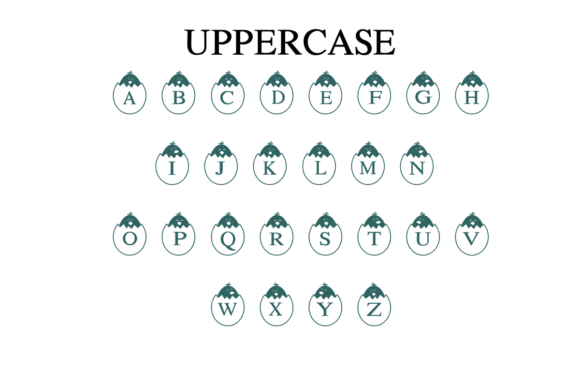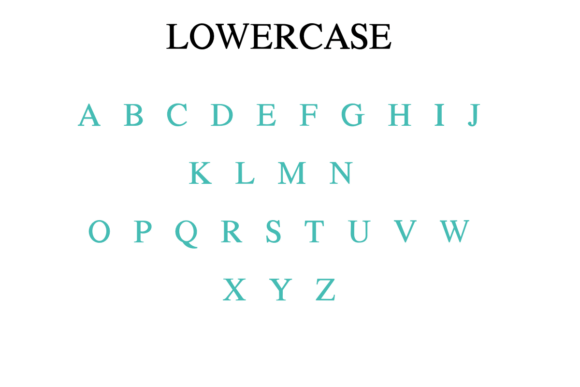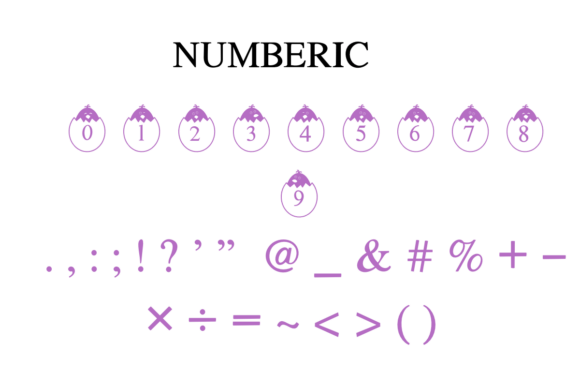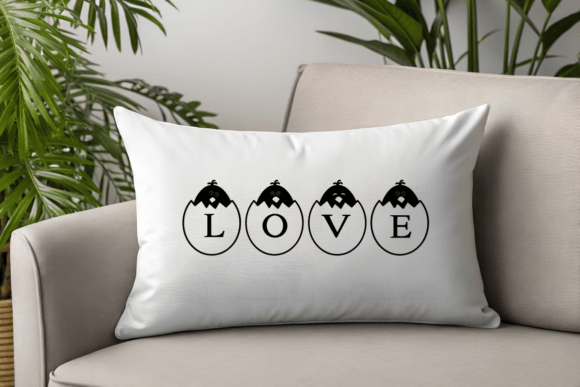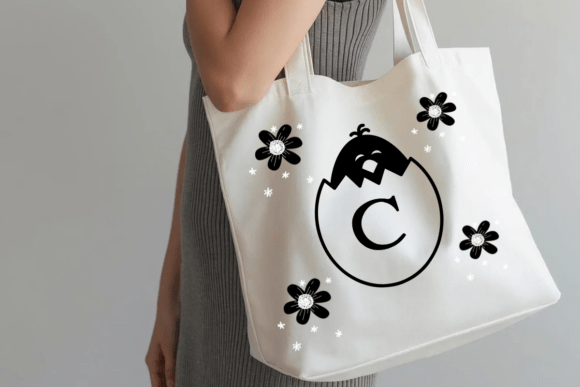
Easter Chick Font: A Fun and Decorative Font for Your Creative Projects
Are you looking for a fun and decorative font to add a personal touch to your creative projects? Look no further than the Easter Chick Font! This adorable font is perfect for designers and crafters who want to add a playful and festive touch to their work. In this article, we’ll explore the features and uses of the Easter Chick Font, and show you how to make the most of this versatile font.
What is Easter Chick Font?
Easter Chick Font is a decorative font that is designed to resemble cute and colorful Easter chicks. The font is made up of playful and whimsical characters that are sure to bring a smile to your face. With its bold and rounded letters, Easter Chick Font is perfect for creating eye-catching and engaging designs.
Uses of Easter Chick Font
Easter Chick Font is a versatile font that can be used for a variety of creative projects. Here are some ideas to get you started:
- Note-taking and journaling: Use Easter Chick Font to add a personal touch to your notes and journal entries. The font’s playful design makes it perfect for writing diaries, to-do lists, and inspirational quotes.
- Greeting cards and invitations: Create beautiful and festive greeting cards and invitations with Easter Chick Font. The font’s bold and colorful design is sure to make your cards stand out.
- Banners and signs: Use Easter Chick Font to create eye-catching banners and signs for parties, events, and special occasions.
- Social media posts: Add a playful touch to your social media posts with Easter Chick Font. The font’s fun design is sure to grab the attention of your followers.
- Mugs, shirts, and stationery: Use Easter Chick Font to create fun and personalized mugs, shirts, and stationery. The font’s bold design makes it perfect for printing on a variety of materials.
Tips for Using Easter Chick Font
Here are some tips for using Easter Chick Font in your creative projects:
- Mix and match: Combine Easter Chick Font with other fonts to create a unique and eye-catching design.
- Experiment with colors: Try out different colors and color combinations to add depth and interest to your design.
- Add graphics and images: Use Easter Chick Font in combination with graphics and images to create a visually appealing design.
- Keep it simple: Don’t be afraid to keep your design simple and clean. Easter Chick Font is bold and eye-catching, so you don’t need to add too much extra design elements.
Benefits of Using Easter Chick Font
Here are some benefits of using Easter Chick Font in your creative projects:
- Unique and eye-catching: Easter Chick Font is a unique and eye-catching font that is sure to grab the attention of your audience.
- Playful and festive: The font’s playful and festive design makes it perfect for Easter-themed projects and other celebrations.
- Versatile: Easter Chick Font can be used for a variety of creative projects, from note-taking and journaling to designing banners and social media posts.
Easter Chick Font is a fun and decorative font that is perfect for designers and crafters who want to add a playful and festive touch to their creative projects. With its bold and rounded letters, Easter Chick Font is sure to bring a smile to your face and grab the attention of your audience. Whether you’re creating greeting cards, banners, or social media posts, Easter Chick Font is a versatile font that is sure to inspire your creativity.